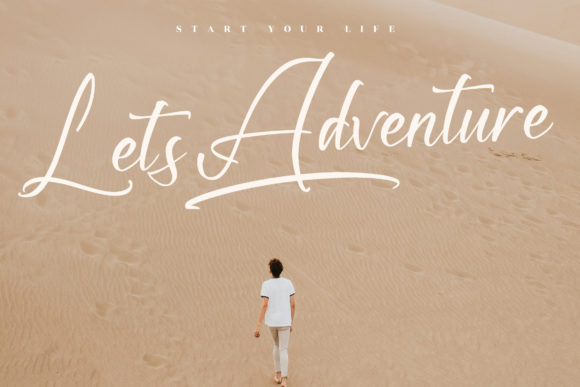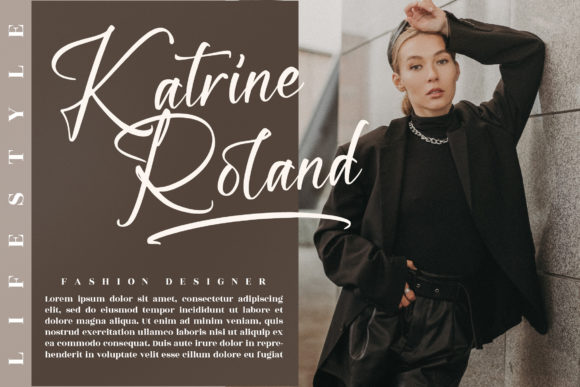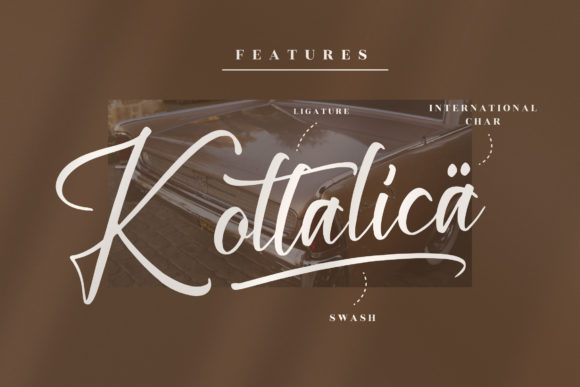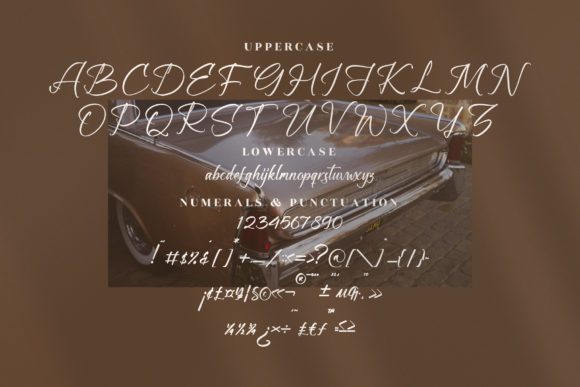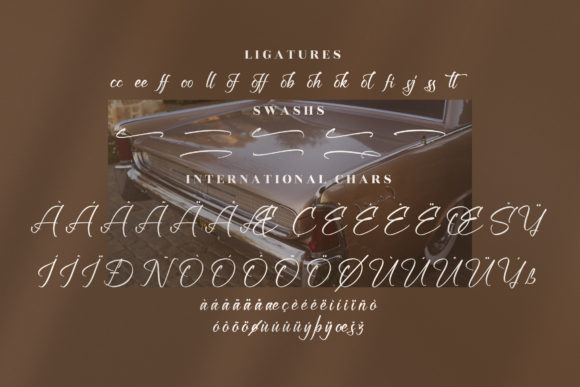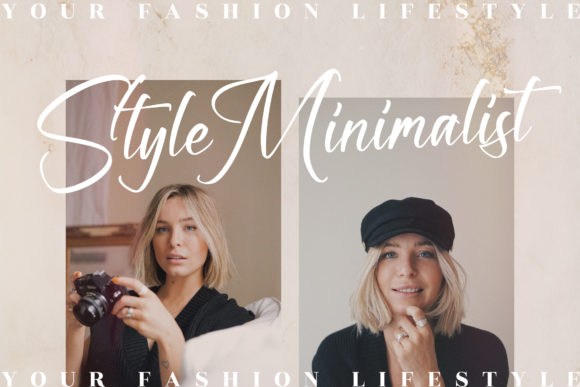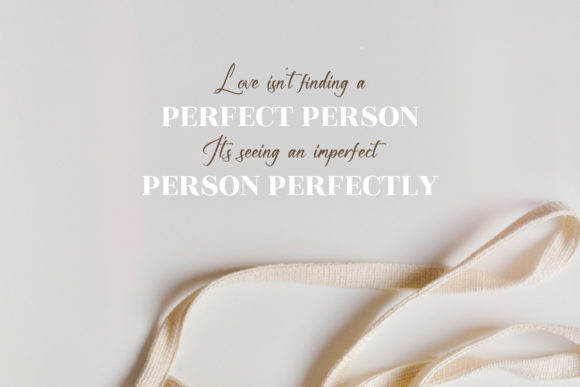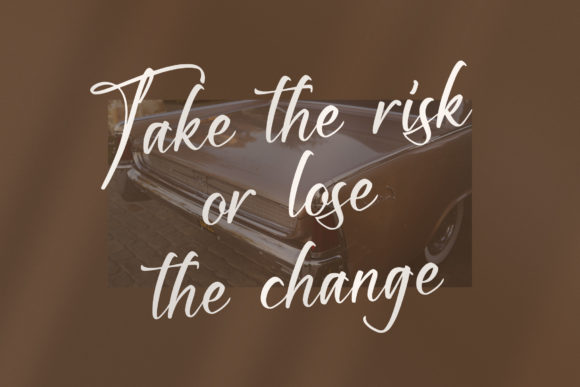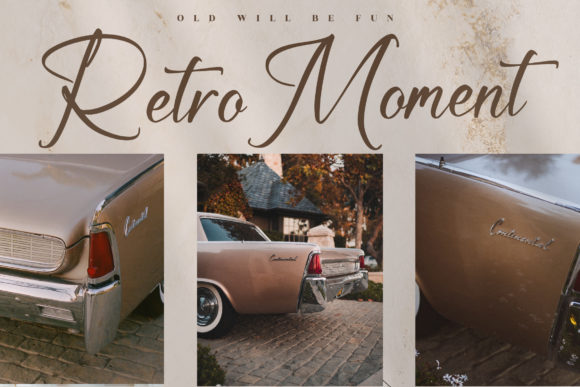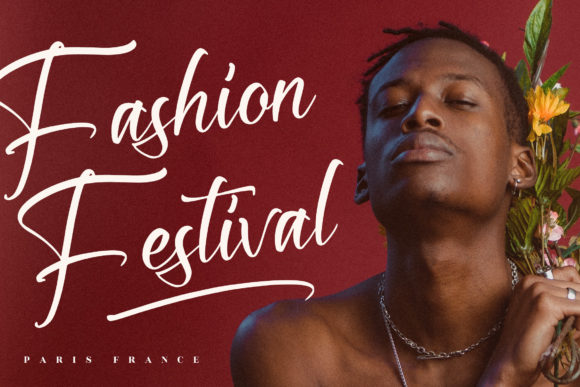
Moland Hoffman Font
About Moland Hoffman Font
Moland Hoffman is a trendy and beautiful script font. It is suitable for any projects such as: logos, branding projects, homeware designs, product packaging, mugs, quotes, posters, shopping bags, t-shirts, book covers, and all your other lovely projects that need a beautiful script taste. This font is PUA encoded which means you can access all of the glyphs and swashes with ease!